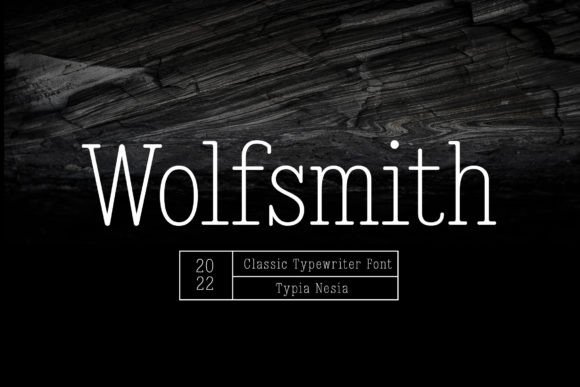
Introducing Wolfsmith Font, the epitome of elegance and sophistication in the world of typography. Crafted with meticulous attention to detail by the renowned Typia Nesia, this classic vintage typewriter serif font is a must-have for any discerning designer or creative enthusiast.
With its timeless appeal and versatile nature, Wolfsmith Font is the perfect choice for a myriad of creative projects. Whether you're working on a classic logo design, branding for a high-end fashion label, or an editorial masterpiece, this font will elevate your work to new heights. Its captivating curves and refined strokes exude a sense of luxury and refinement, making it ideal for creating a lasting impression.
Imagine the impact of Wolfsmith Font on your magazine layouts, captivating readers with its elegant presence. Its graceful serifs and balanced letterforms will effortlessly enhance your editorial designs, ensuring a visually appealing reading experience. From fashion promotional materials to wedding planner branding, this font will add a touch of sophistication to every project.
Not limited to print, Wolfsmith Font is also perfect for digital creations. Whether you're designing a stunning blog, crafting engaging advertising materials, or creating unique wedding card invitations, this font will make a statement that resonates with your audience. Its versatility knows no bounds, allowing you to explore endless creative possibilities.
But its applications don't end there. Wolfsmith Font is a true work of art, making it an ideal choice for home decor, art quotes, and book covers. Its distinctive style will captivate and inspire, leaving a lasting impression on anyone who encounters it.
Unleash your creativity and bring your visions to life with Wolfsmith Font. Its impeccable craftsmanship and attention to detail will elevate your designs, setting you apart from the crowd. With every stroke, this font tells a story, evoking emotions and creating a connection with your audience.